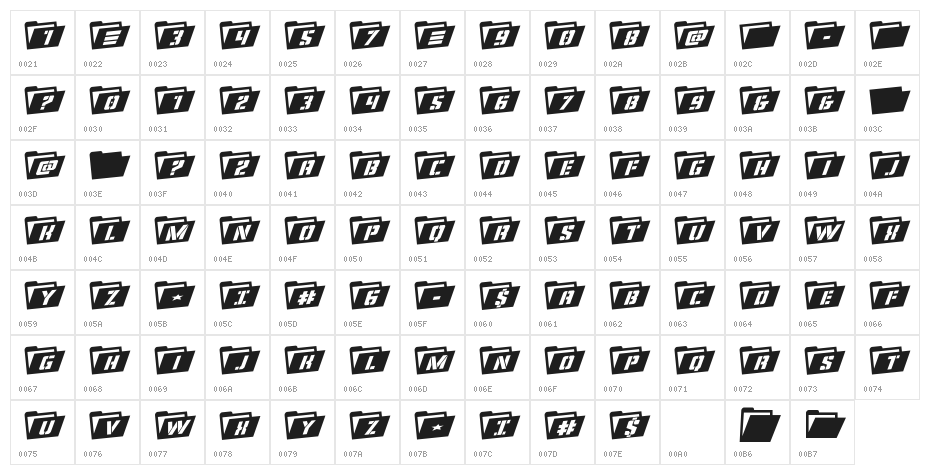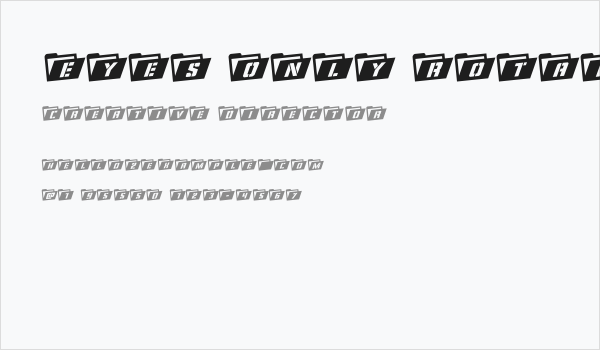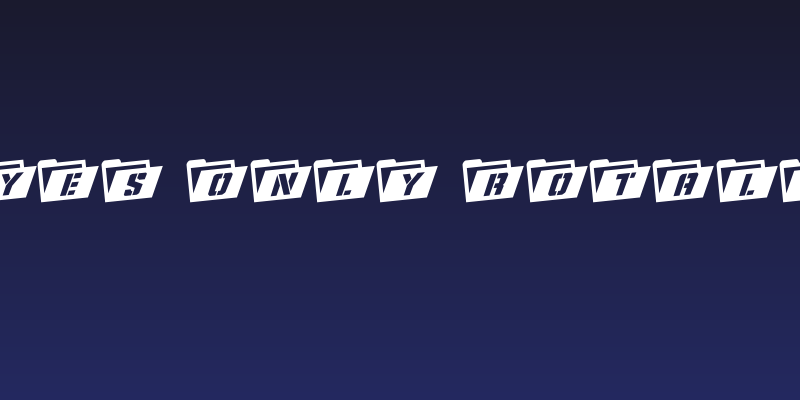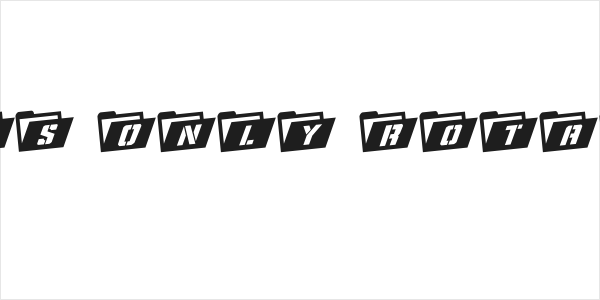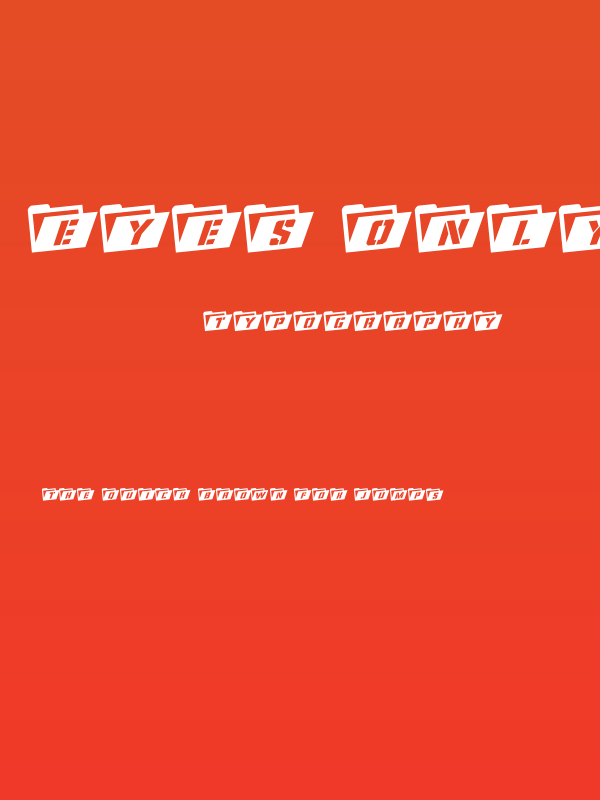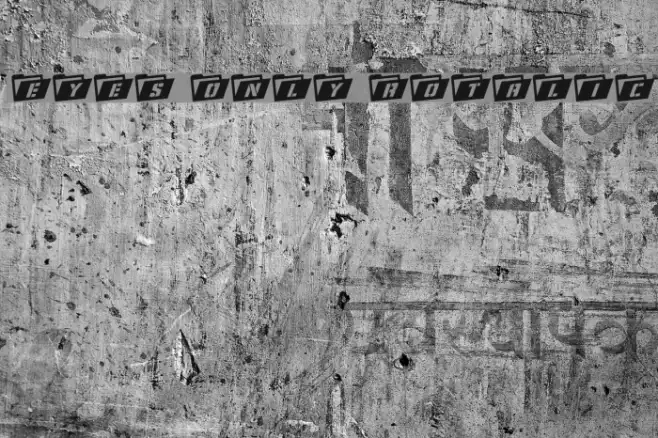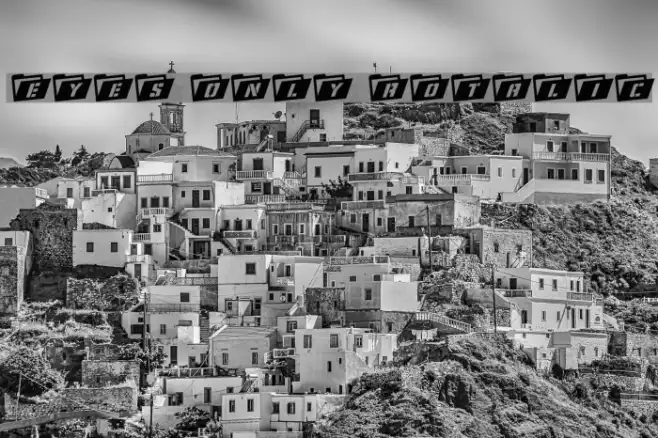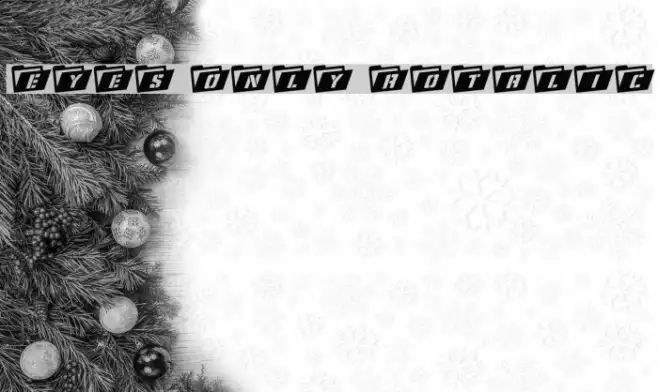
Eyes Only Rotalic Font
Eyes Only Rotalic Description
This font features a bold, dynamic style with a distinct italic slant, giving it a sense of motion and urgency. Each character is encased in a folder-like shape, adding a unique and modern touch. The letters and numbers are bold and well-defined, ensuring readability while maintaining a decorative flair. The special characters are consistent with the overall design, providing a cohesive look across all elements. This font's strong visual impact makes it suitable for attention-grabbing designs.
| Proposed Projects | Ideal for branding, posters, and any project requiring a modern, eye-catching typeface. |